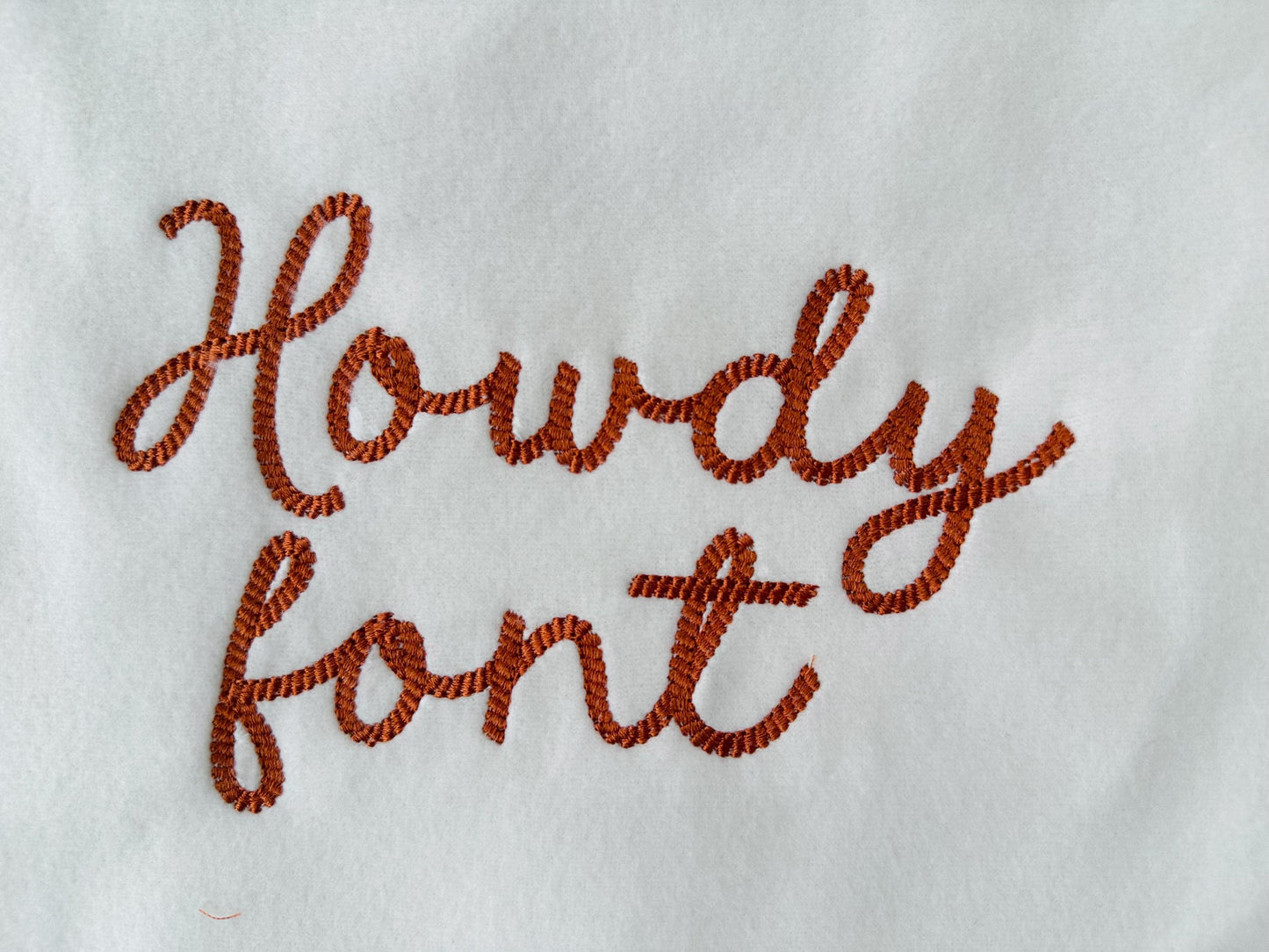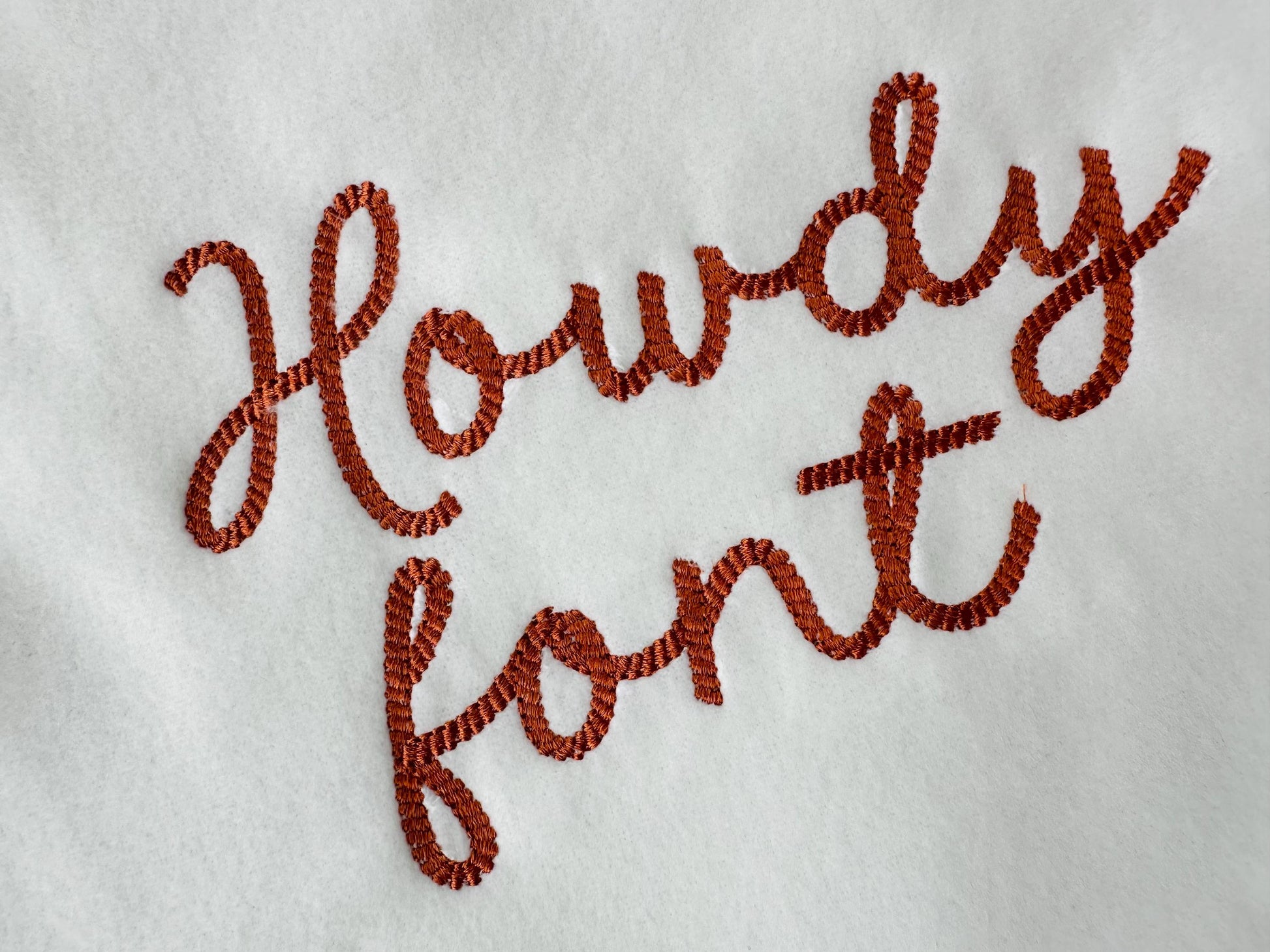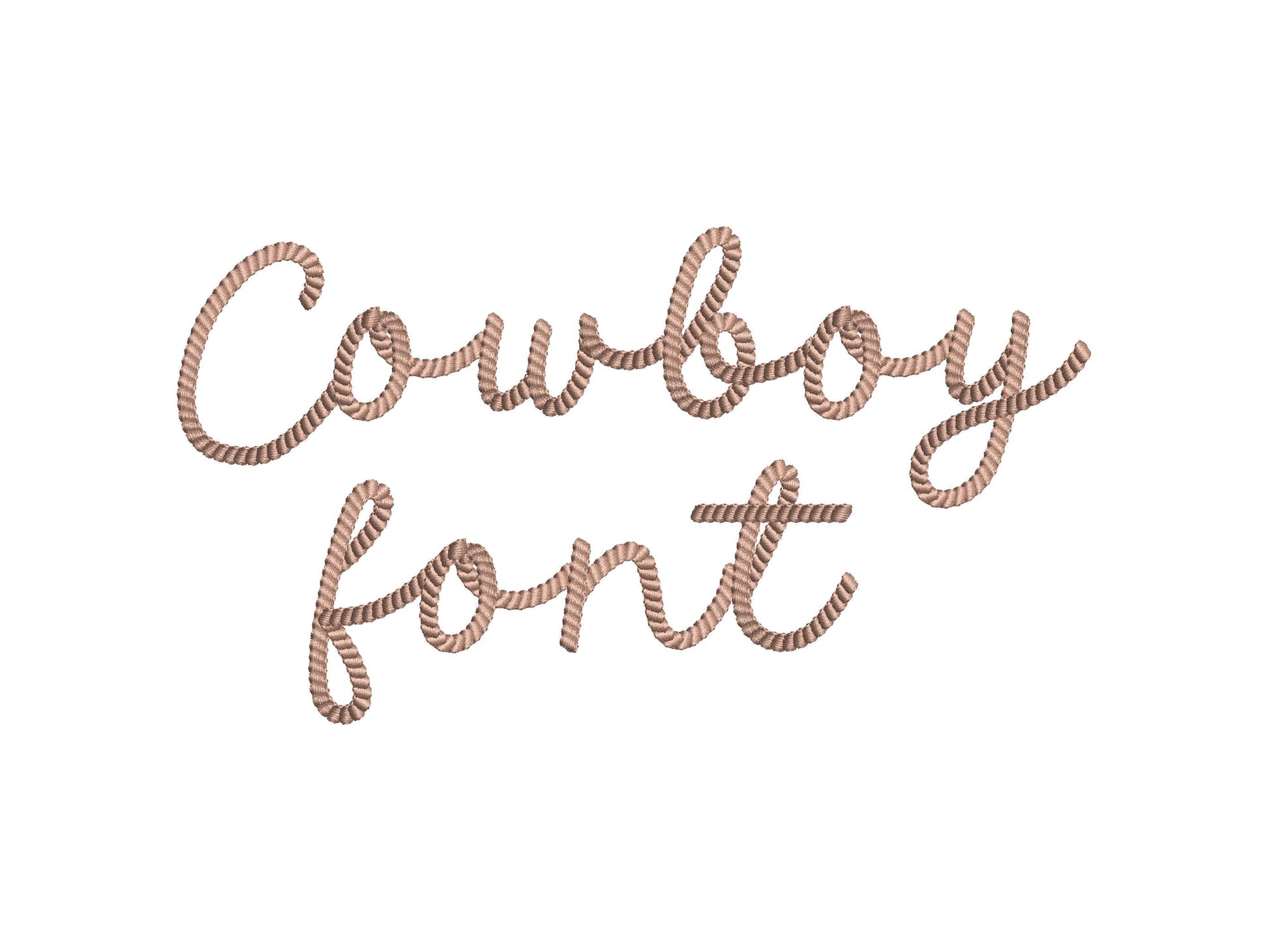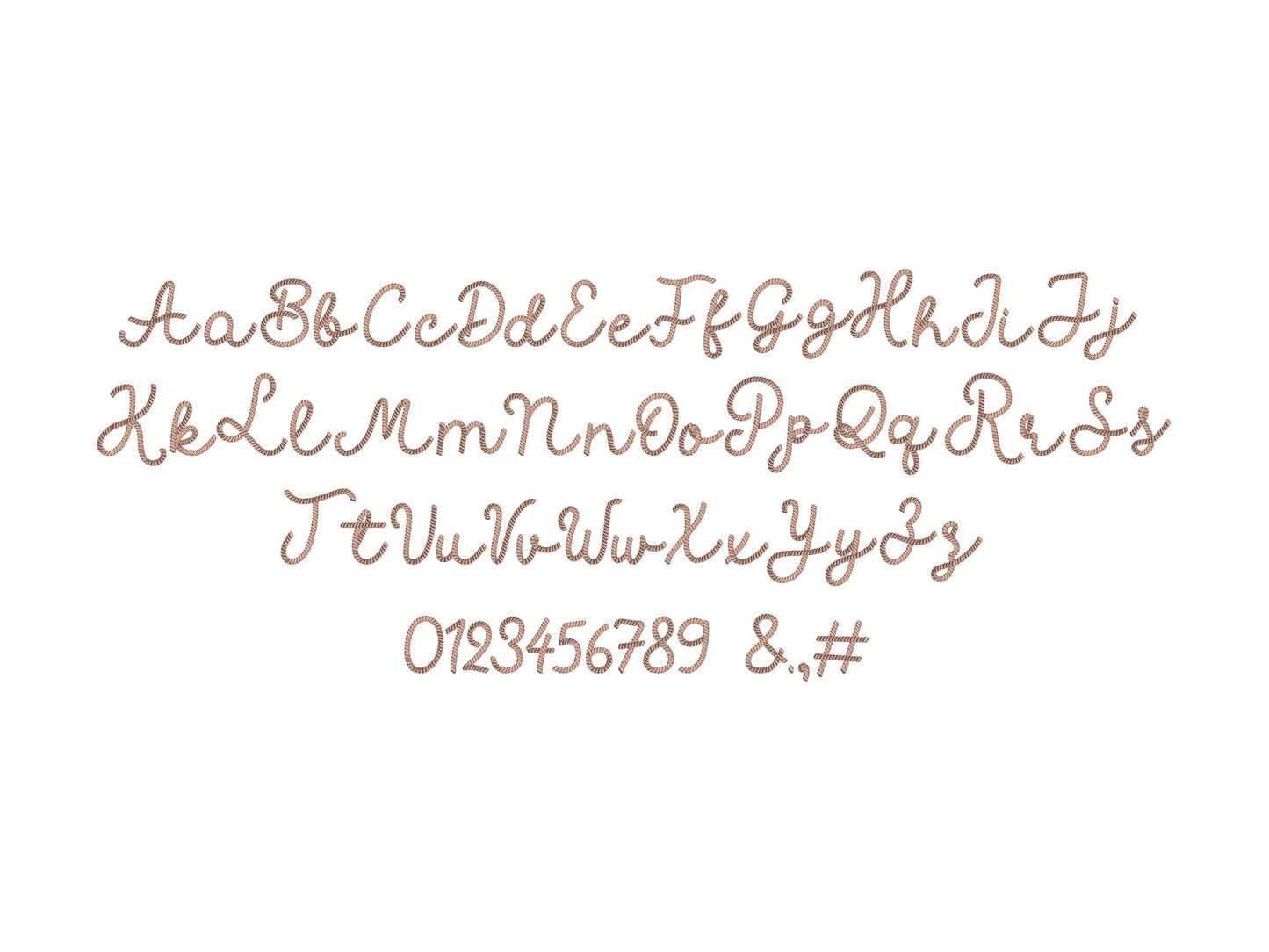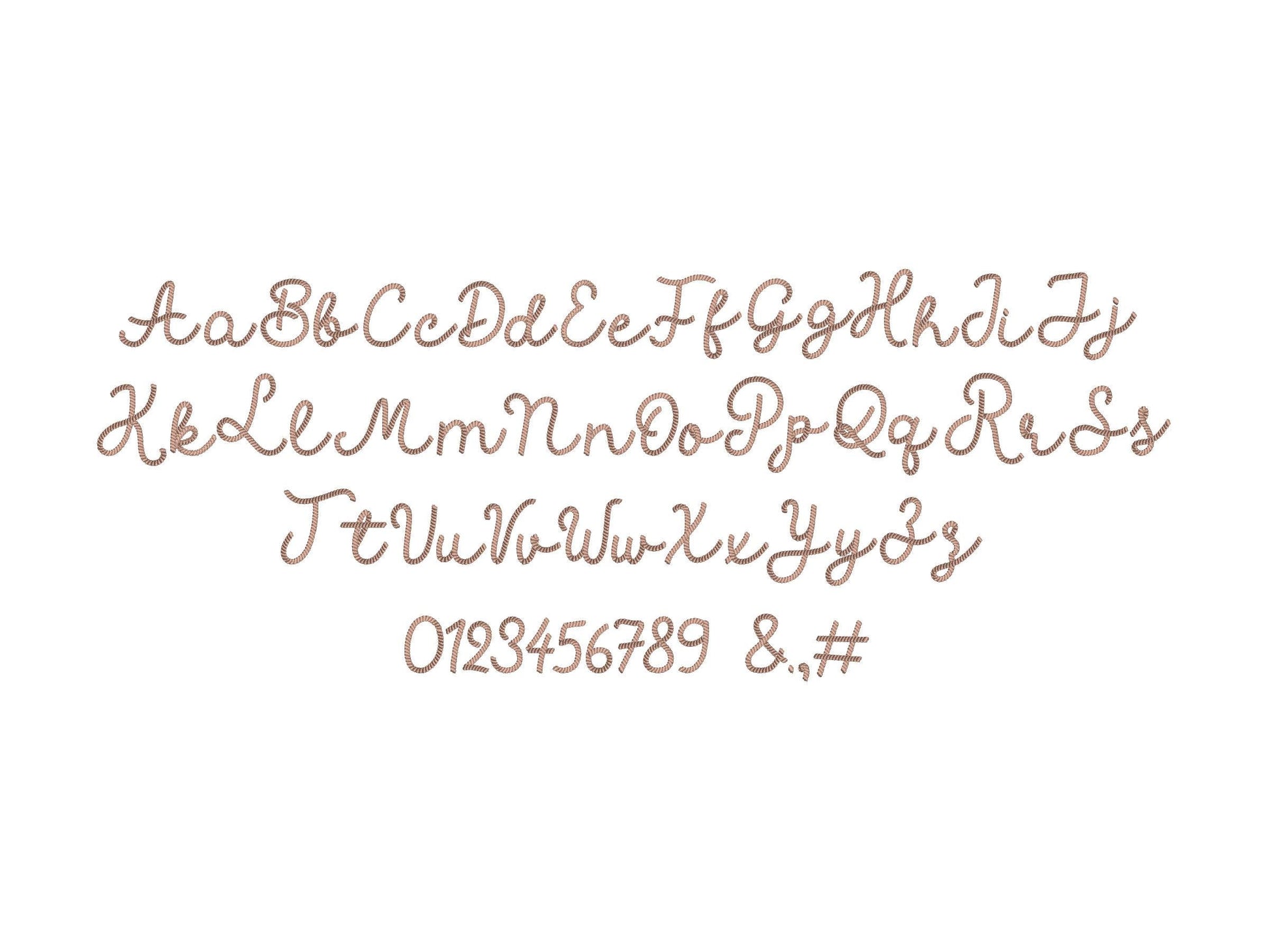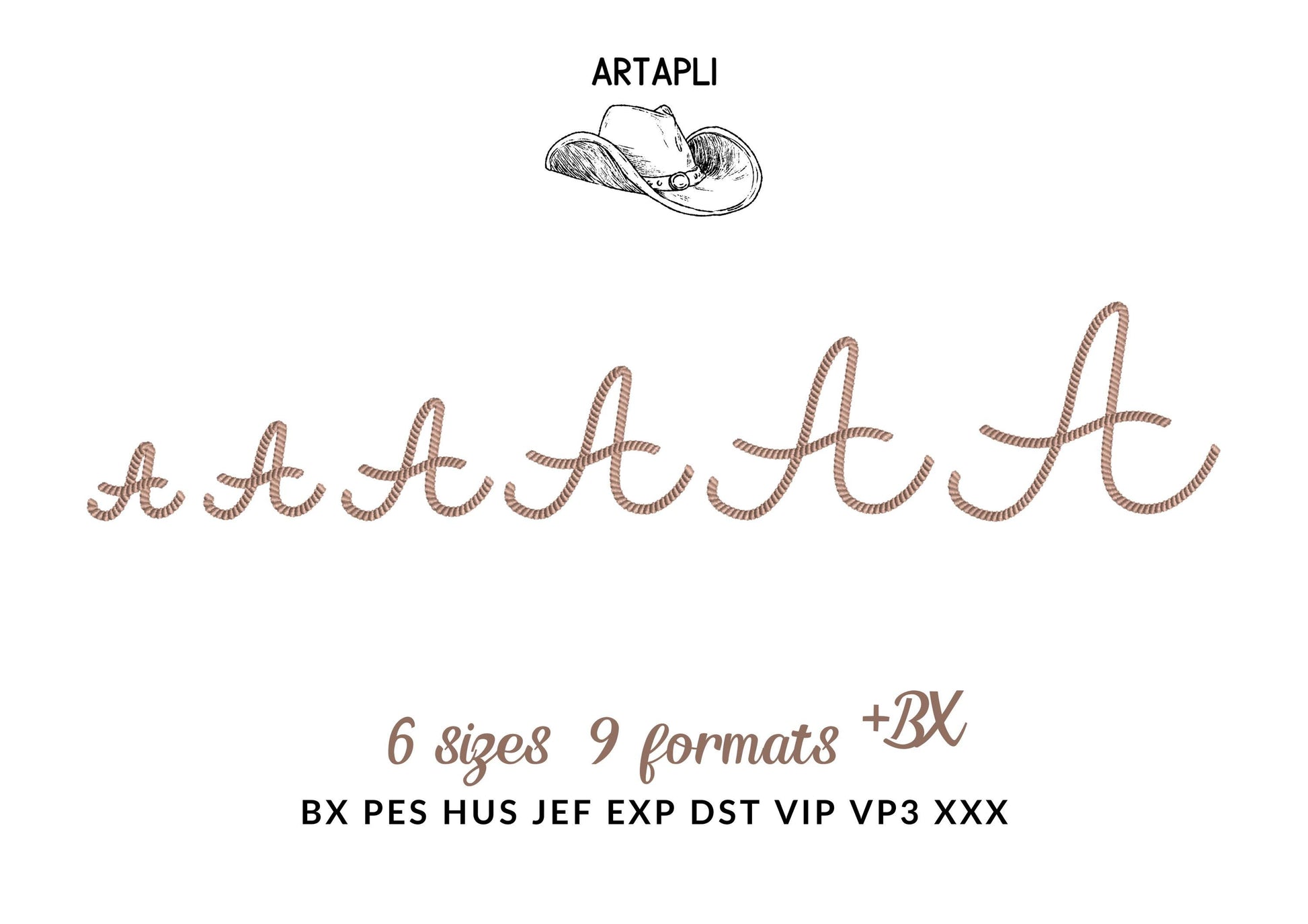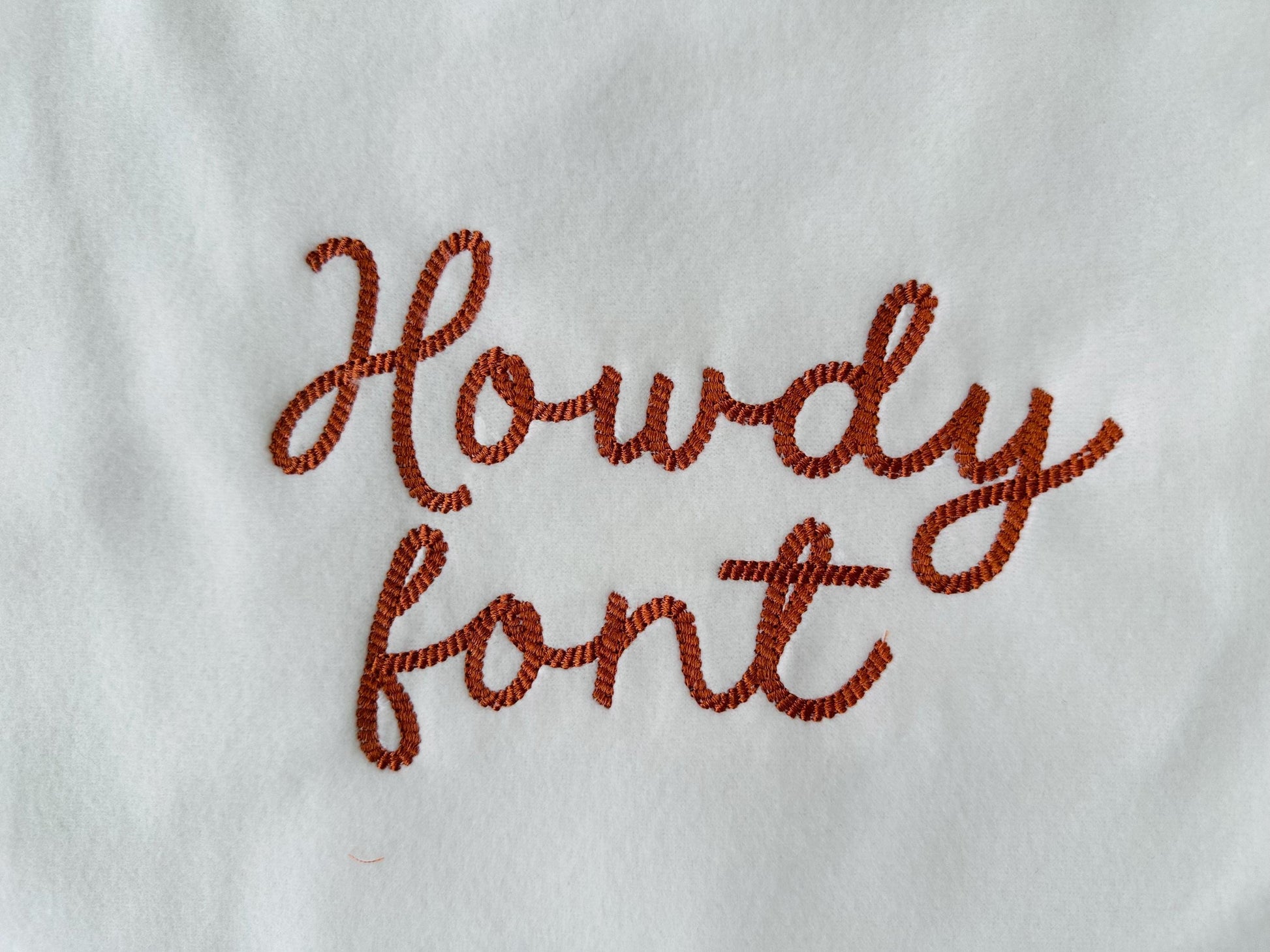
Such a fun font & super easy to stitch!
Love this font. Looks so western
font was exactly as expected. Good quality
Stitched out so amazing!! Very impressed with this font
This is a great font!
Used this font to stitch a name design. It turned out great. The stitching is very thick!
stitched out great! looks just like picture!
The quality is great! It was just as described and was easy to connect the letters together. My grandson is going to love it on his quilt. Excuse the wrinkles in the photo. That was my fault. I didn’t have my fabric tight enough.
Loved this, stitches out nicely
Beautiful font for my grandsons cowboy themed nursery.
I am making a Bandana Tote Bag and I used this embroidery file to embroidery Howdy on the front. I love it! The tope design goes perfect with a Cowboy Country Theme! Will keep watch on other great embroidery files you have!
I love this font for my littles.
Great stitch outcome. Would highly recommend!
this was awesome, loved the font.
It stitched beautifully and I’m happy with the results!
Stitches out very nice! Loved it!!
used them for bandana embroidery, and they came out so cute!
Cute font! Can’t wait to try.
Sehr schöne Schrift. Leider werden manche Abschnitte "rückwärts" gestickt wodurch das Stichbild etwas anders aussieht. Fällt nicht wirklich auf...
Stitched out great! Would recommend
Great font! Stitched out perfectly!
Stitches out beautifully and look great !
Stitches out so cute, love this font!!
Perfect font for what I needed.
Just started a test run and the design looks great
I LOVE this font! It stitches well and is clearly a rope font. It’s also pretty crisp design. Perfect for the projects I needed it for!